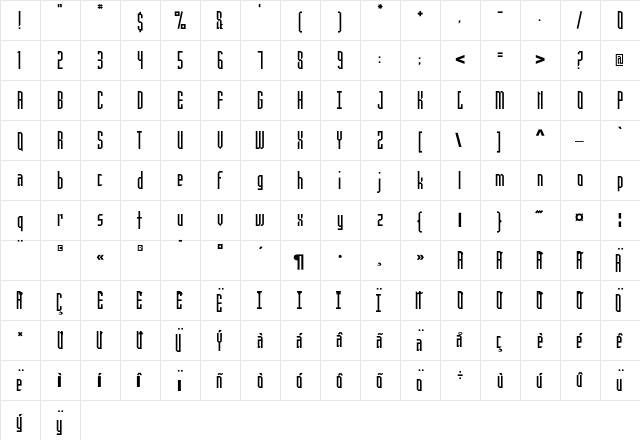
Fourty-five Regular
Design Context for Fourty-five Typeface
Fourty-five is a composed and adaptable typeface that performs quietly and consistently across a wide range of design contexts.